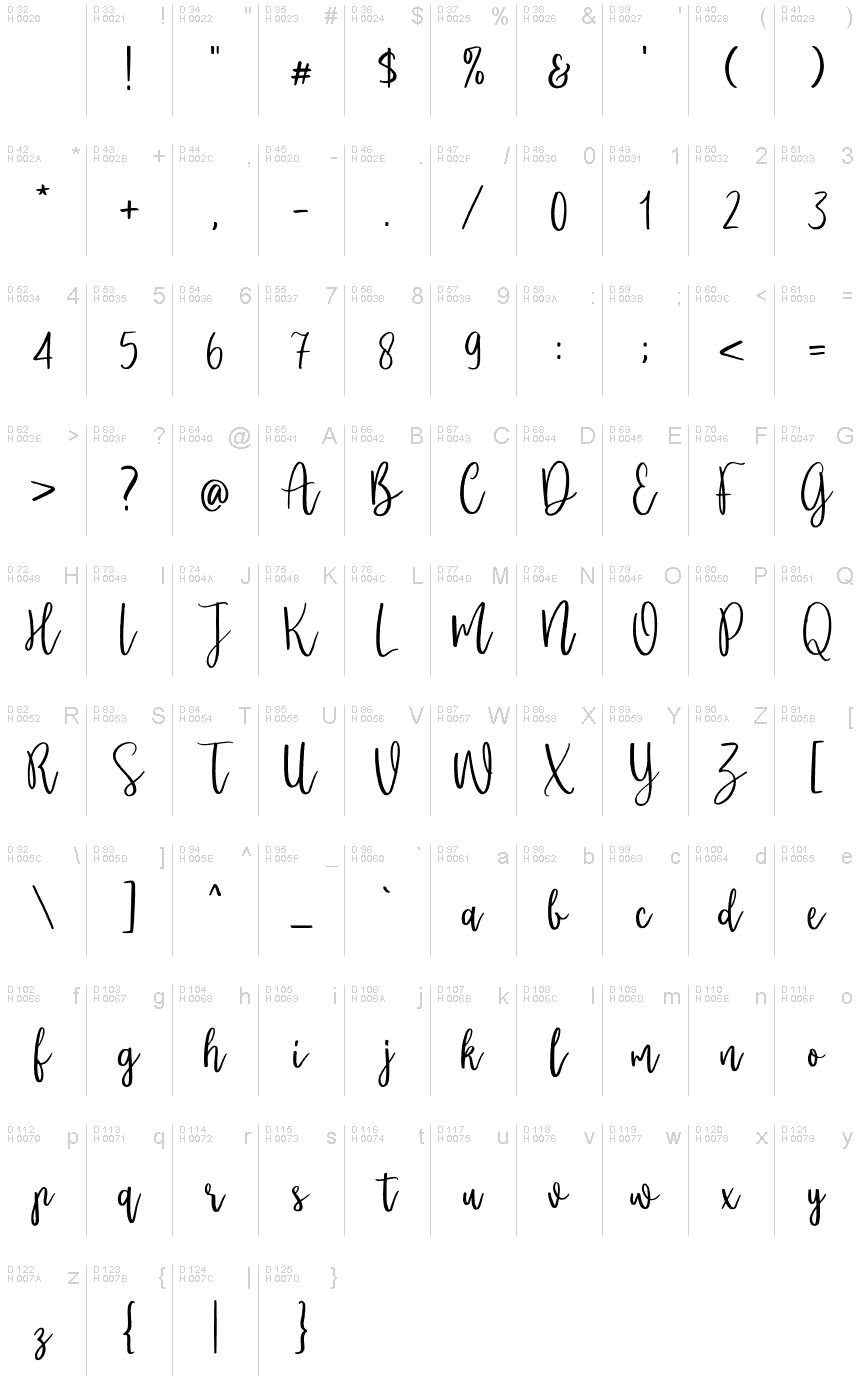
Miqueltan
Miqueltan is the perfect font for those wanting to add a touch of whimsy to their designs. Designed by Allouse.Studio, this handwritten font boasts a semi-light weight that's easy on the eyes and offers a playful feel that's suitable for various projects. Whether you're creating invitations, branding materials, or social media graphics, Miqueltan will add a unique touch to your work. Its fluid strokes and charming serifs make it ideal for everything from wedding stationery to children's book covers. Download Miqueltan today and elevate your designs with its delightful personality!